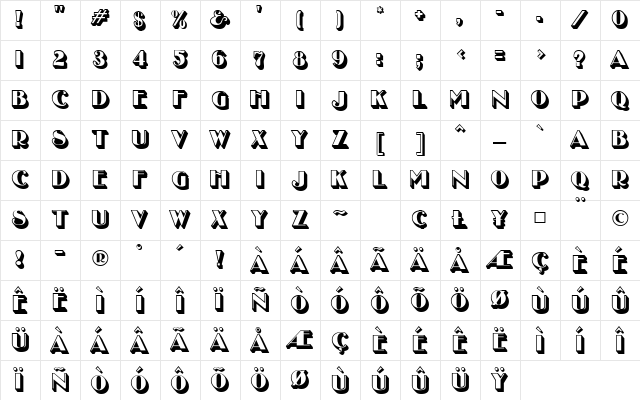
Uncle Bob MF Shadow Shadow
Design Context for Uncle Bob MF Shadow Typeface
Uncle Bob MF Shadow brings ornamental detail and strong personality to headlines and identities, where visual impact matters more than quiet functionality.
Font Pairing: Pair with a clean neutral sans-serif for body copy to let Uncle Bob MF Shadow's character lead without overwhelming the composition.
Pro Tip: Treat Uncle Bob MF Shadow as the centrepiece of your typographic hierarchy. One strong heading set in a decorative face can carry an entire layout.